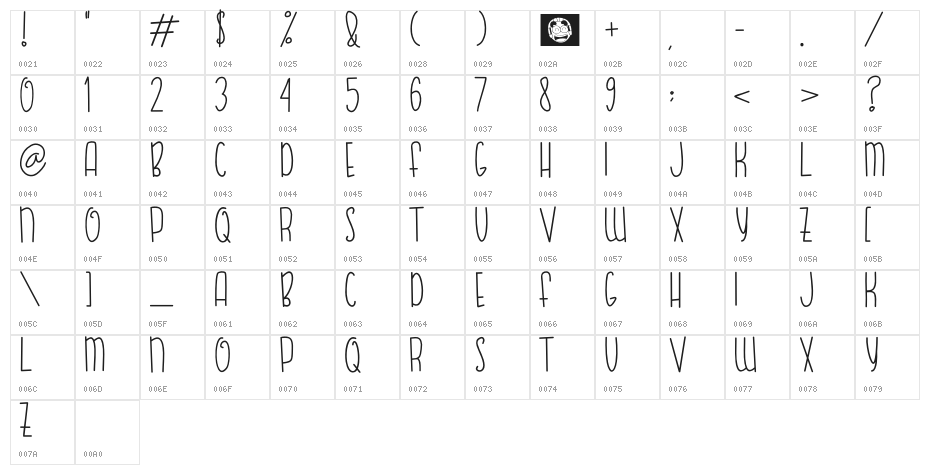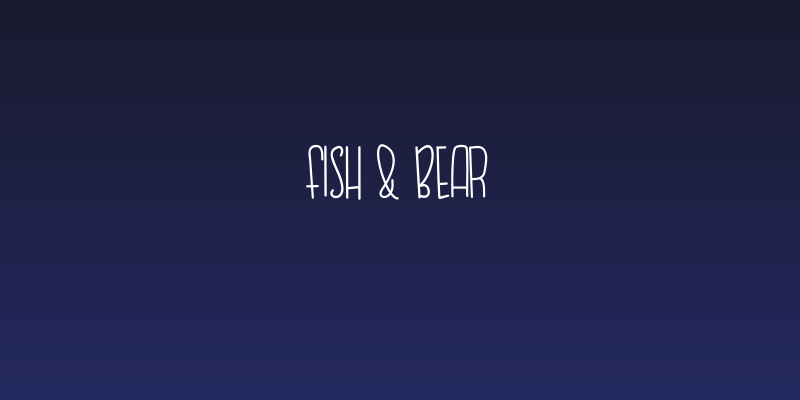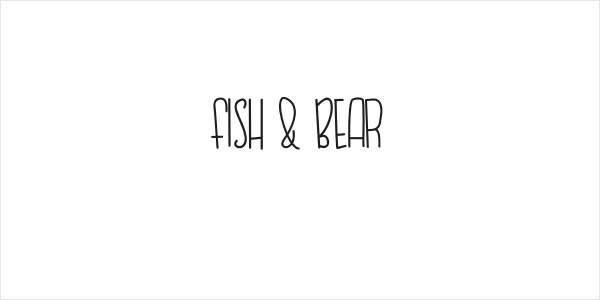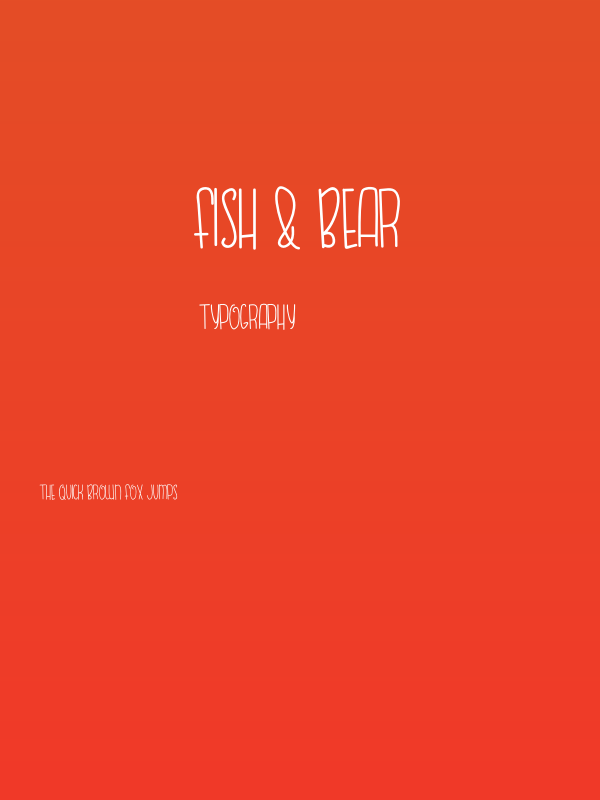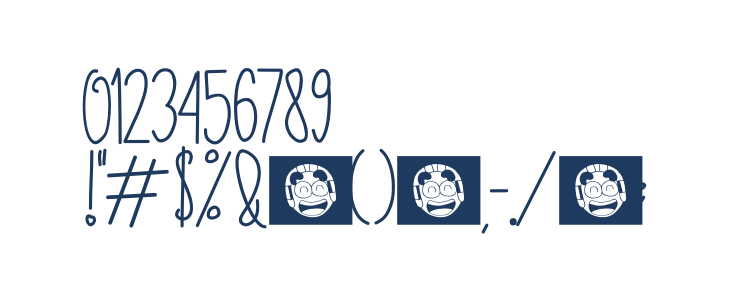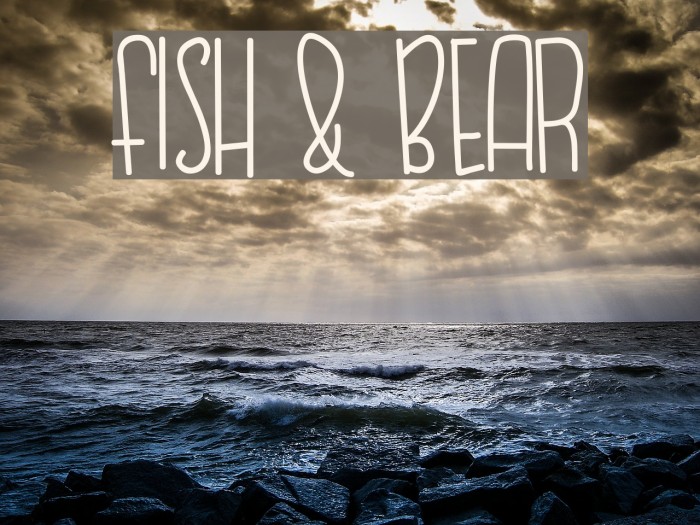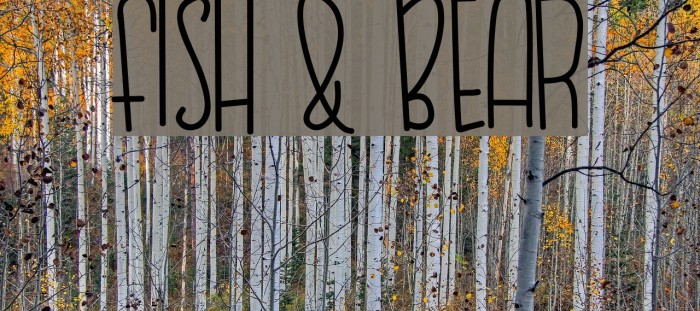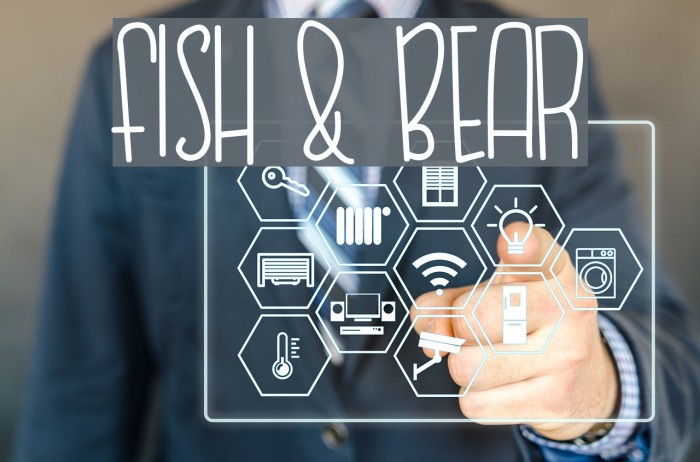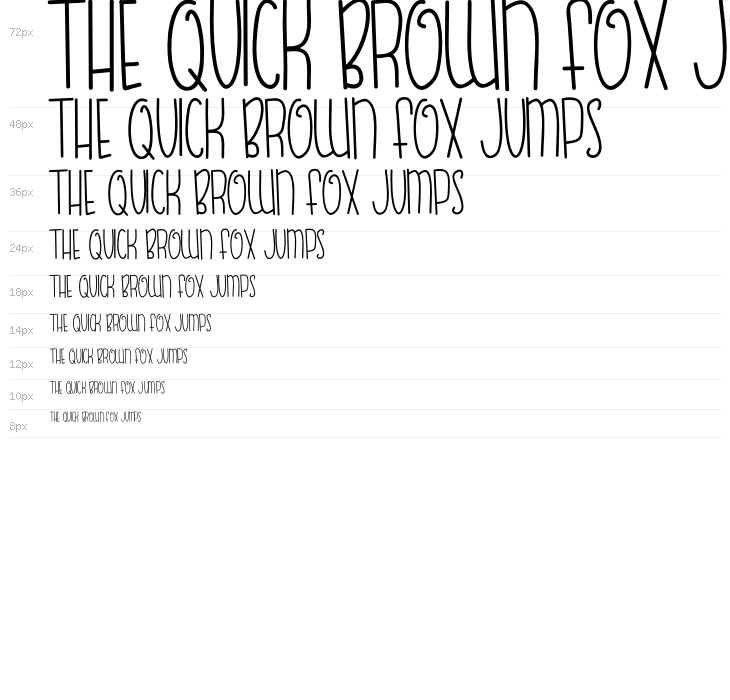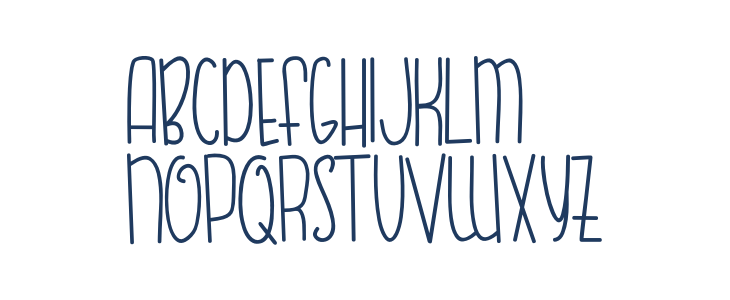
FISH & BEAR Font
FISH & BEAR Description
This font features tall, narrow characters with a playful and quirky style. The letters are elongated with a consistent stroke width, giving them a unique and whimsical appearance. The uppercase and lowercase letters maintain a uniform height, contributing to a cohesive look. The numerals are similarly styled, with a distinctive flair that matches the alphabet. Special characters are included, adding versatility to the font. Overall, this font exudes a fun and informal vibe, making it suitable for creative and lighthearted projects.
| Overall Style | Whimsical and playful |